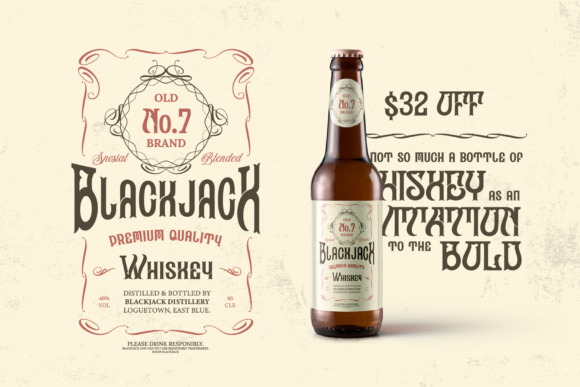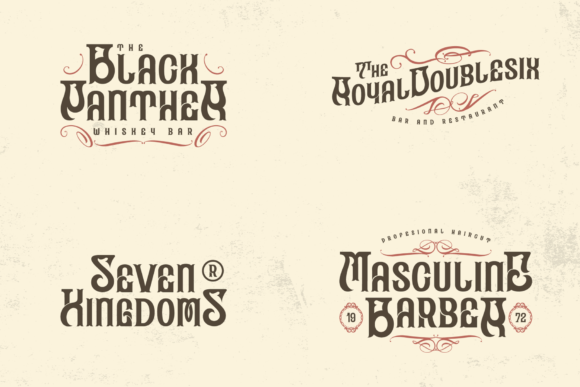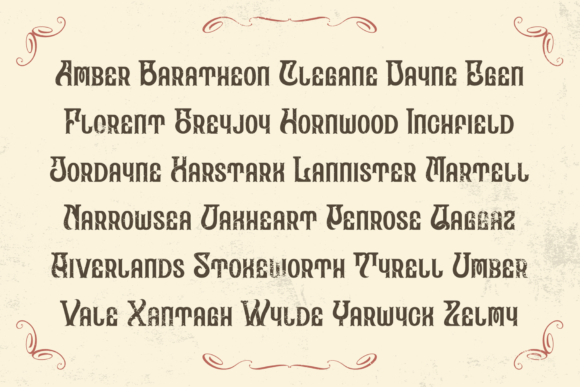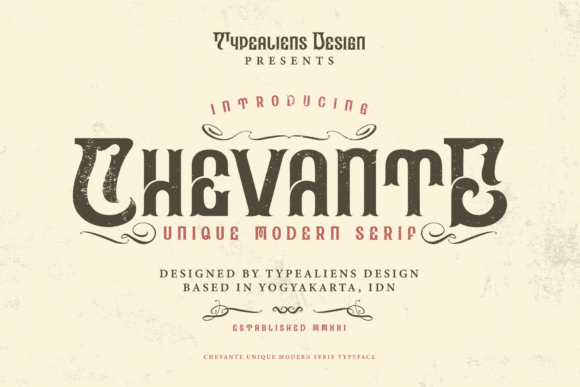
Introduction to Chevante Font
Chevante is a cool, bold and vintage styled display font.
Add this classy font to each of your creative ideas, and they will instantly stand out .